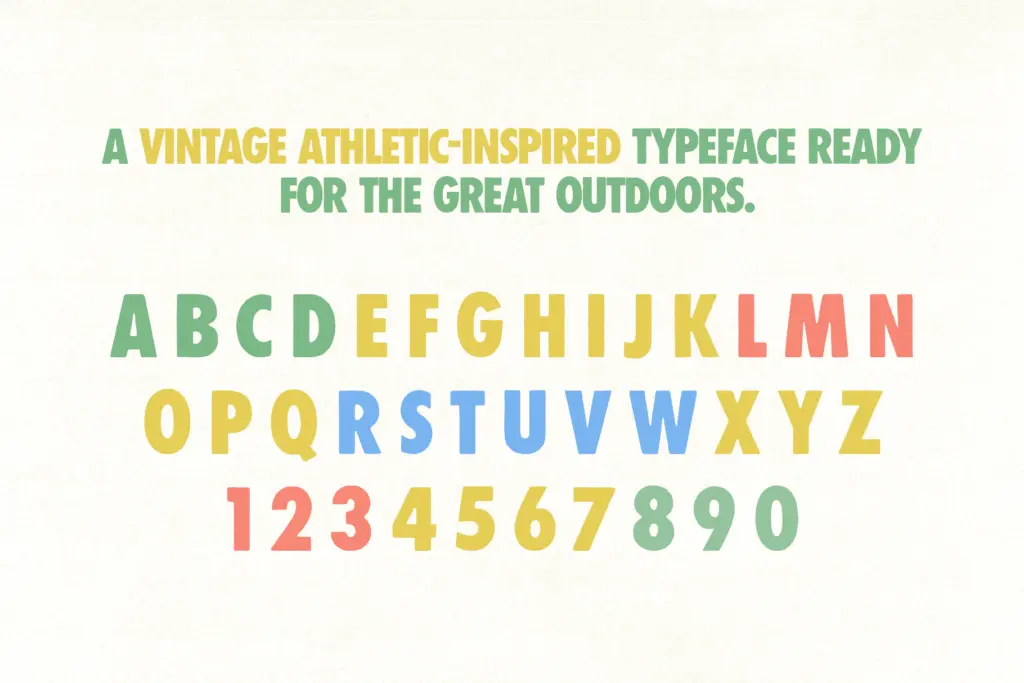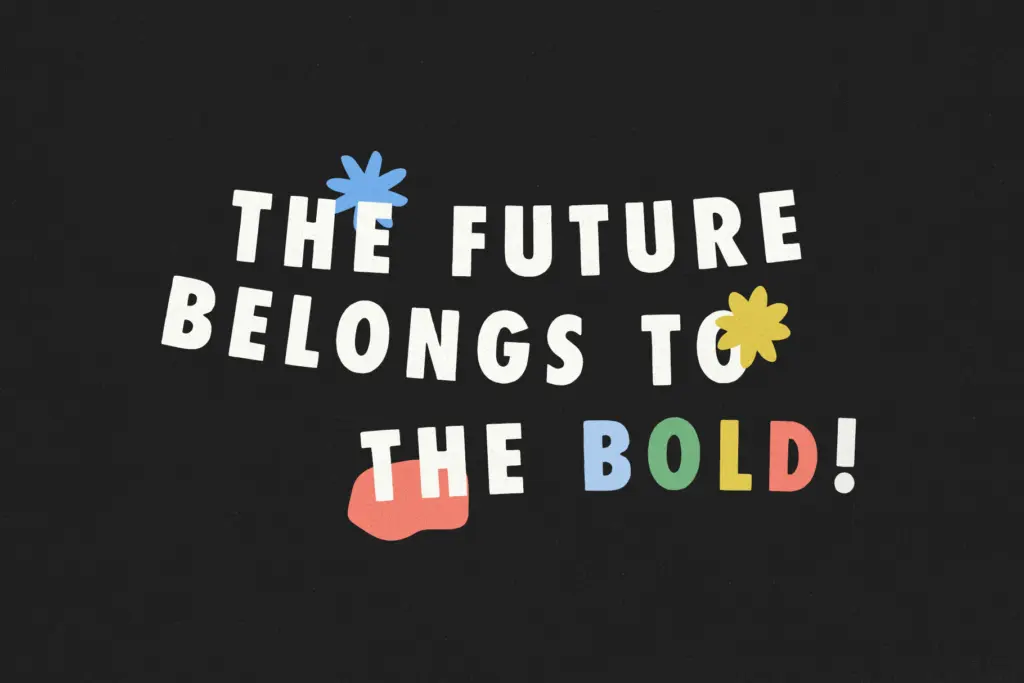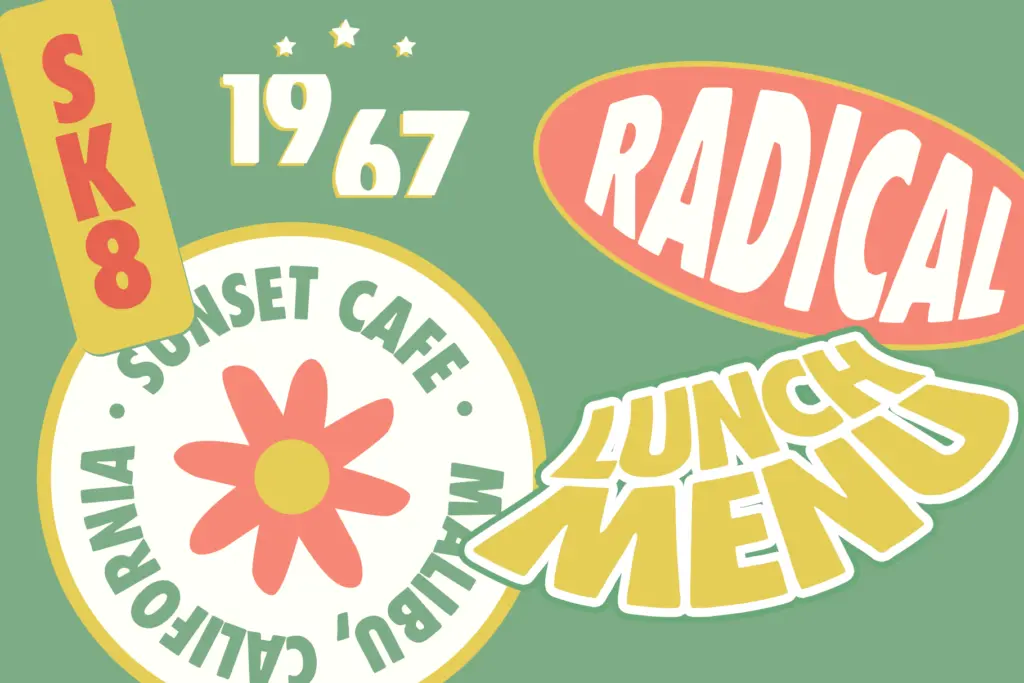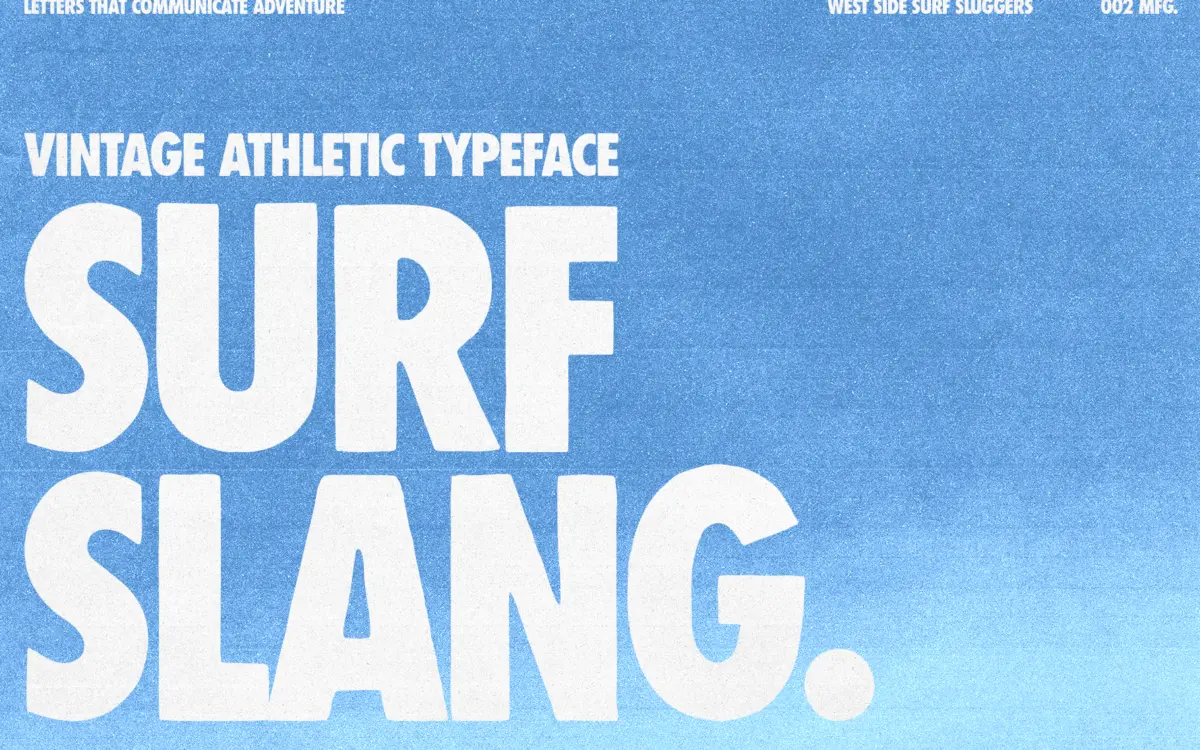
Surf Slang is a bold, condensed sans built for shouting rather than reading. The letterforms are tall and narrow, with the kind of hand-cut edges that suggest a stencil cut with a dull blade rather than a printer’s proof. Strokes wobble slightly at their edges, corners round off unevenly, and the overall texture reads as deliberately handmade rather than digitally clean. That imperfection is the whole point: this is a display face that wants to look like it was screen-printed onto a board or a tee, not set in a document.
The condensed width means letters sit close together, and the bold weight keeps strokes thick and confident. There’s not much contrast between thick and thin — it’s a monoline-adjacent design, which suits the rough edges better than a more refined contrast structure would. The vintage-athletic reference comes through in the squared-off terminals and the slightly retro proportions of characters like the R and the G, which nod to old sporting-goods lettering without copying any single source too literally.
As a bold condensed display face, Surf Slang covers the basic Latin alphabet, numerals and standard punctuation needed for short-burst headlines and logotypes. The rough-edge treatment is applied consistently across the set, so there’s no jarring shift between a clean-looking character and a heavily distressed one — an easy failure mode for hand-drawn display fonts that this one avoids. Spacing has clearly been tuned for tight, condensed setting rather than loose paragraph work; letters are kicked close together by design, which reinforces the intended use as a headline or word-mark face rather than anything meant to run for more than a few words at a time.
Don’t expect this to behave like a workhorse family with multiple weights or an italic companion — the brief here is narrow and intentional: one bold, condensed, textured cut. That focus is a strength for what it does, but buyers looking for a flexible system with light and regular counterparts elsewhere in the family will need to look outside this specific release.
Surf Slang is built for exactly the contexts its name implies: surf and skate branding, streetwear logos, tee graphics, stickers, zine mastheads, and short display lines where a bit of grit is welcome. It reads well as a stacked logotype or a single punchy word set large — think board-shop signage, apparel prints, or a badge-style lockup for a café or brand chasing a lived-in, outdoorsy feel rather than polish.
It is not a body-text face, and it shouldn’t be asked to be one. The tight spacing and rough edges that make it work at large sizes will turn to visual noise if it’s set smaller or run across multiple lines of copy. Pair it with a plain, quiet sans or serif for any supporting text — captions, addresses, ingredient lists — so Surf Slang can do the one job it’s actually built for: grabbing attention in a single word or short phrase.
- Consistent hand-cut texture across the full character set, with no jarring shifts between characters
- Condensed proportions and squared terminals give it a genuine vintage-athletic feel without copying a specific source
- Reads strongly as a logotype or single-word mark at large sizes
- Tight spacing and rough edges make it unsuitable for anything beyond a few words at a time
- Single bold-condensed cut with no companion weights limits it as a system font
Surf Slang does one job well: loud, gritty, condensed display type for surf and streetwear branding. It's not built to flex beyond short headlines and logotypes, and it shouldn't be asked to.